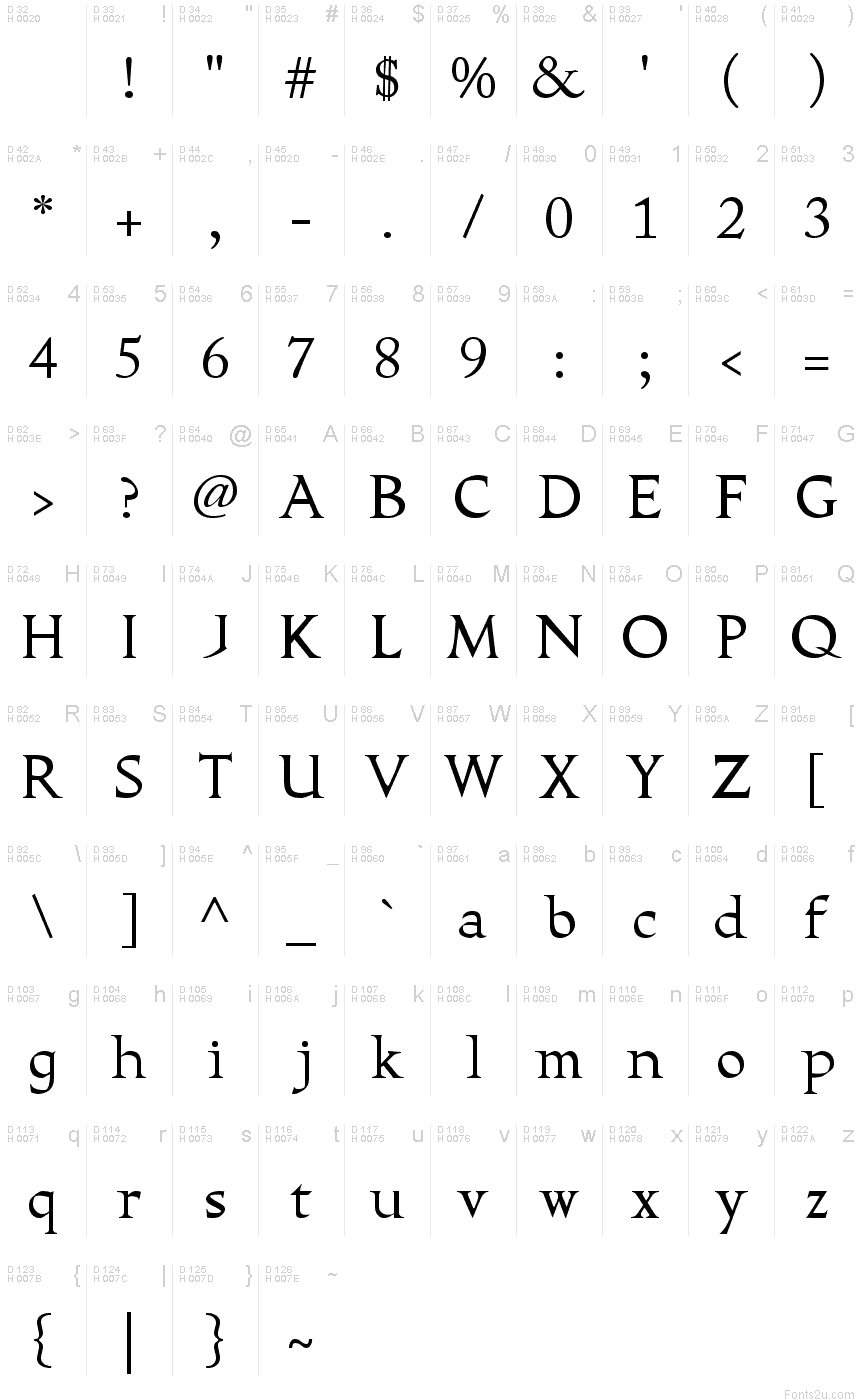
Seafaring, a free old-style serif by Digital Empires, leans into a literary, slightly maritime mood rather than a strict bookish one. The letters mix broad, graceful curves with sharp wedge-like finishing touches, so the font feels formal at first glance but still a little windswept and story-driven.
That gives this free font a natural place on historical packaging, novel covers, boutique branding, poster headlines, and menu titles where you want a classic tone with more character than a neutral serif. It also works well for short pull quotes, chapter openings, and title cards, because those sweeping curves and pointed details give even a few words a distinct voice.